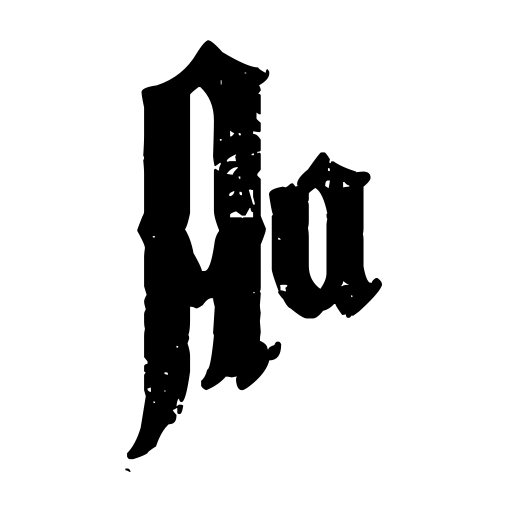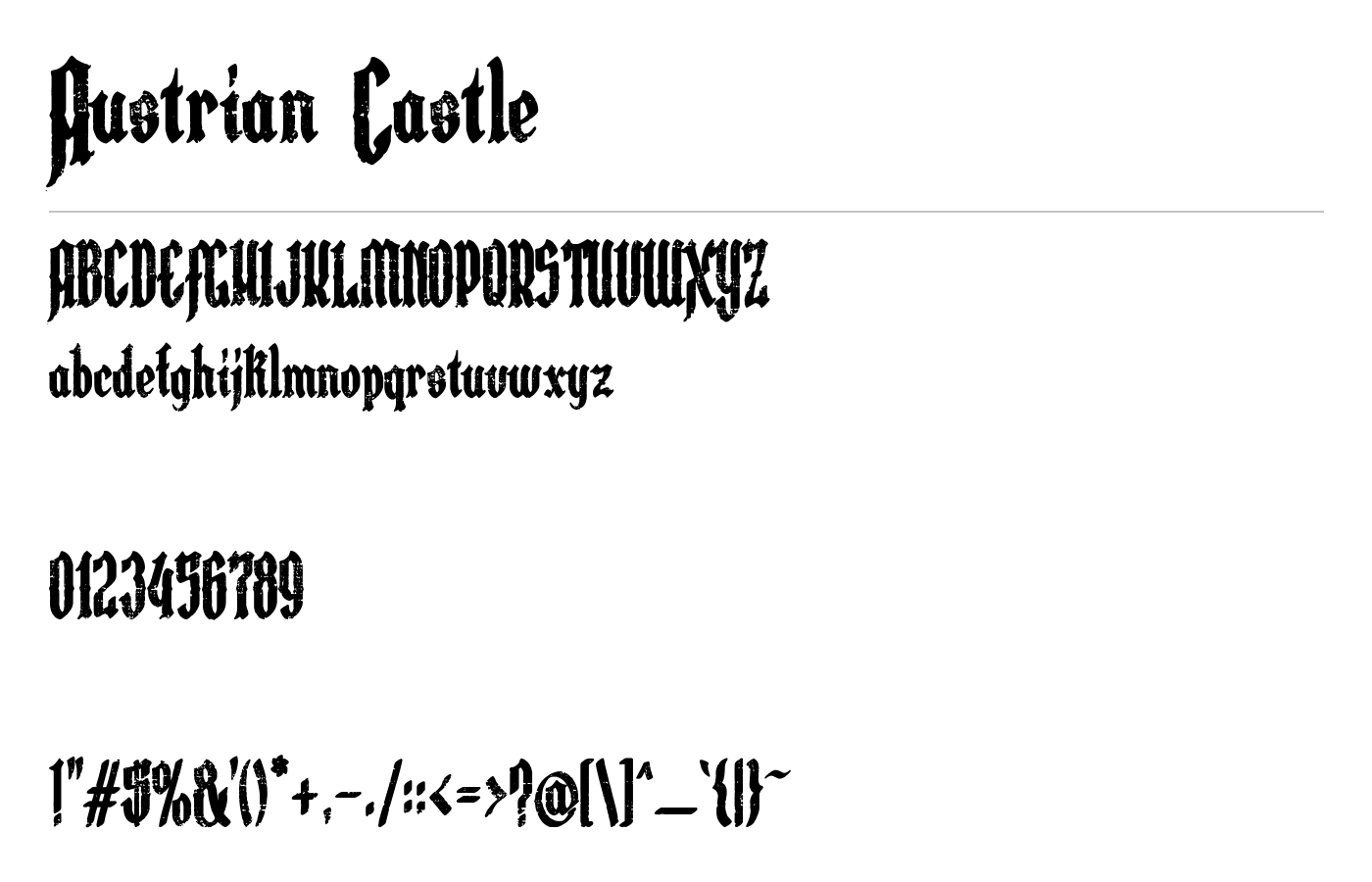
Austrian Castle is a bold, blackletter-style font that captures a gothic and medieval spirit with its tall, narrow letterforms and sharp, textured strokes. Its distinct vintage character makes it ideal for creating dramatic, old-world designs in logos, posters, or branding that seek a strong historical or fantasy vibe. This font works best in display settings where its unique, ornate style can stand out and add a powerful, antique atmosphere.
Austrian Castle Font
About Austrian Castle Font